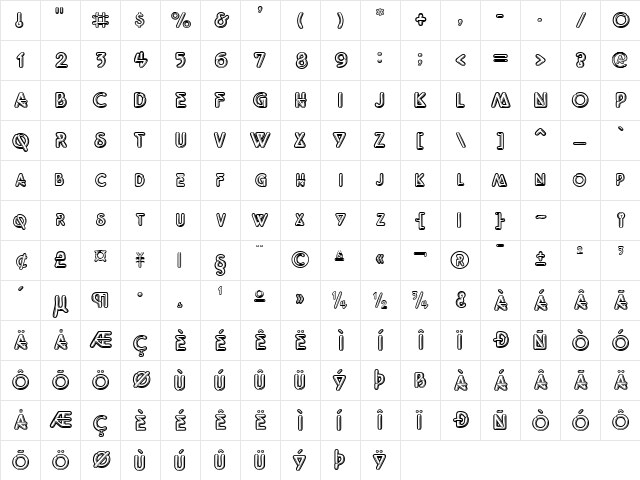
DriveInOutlineSCapsSSK Regular Font Preview
DriveInOutlineSCapsSSK Regular
Design Context for DriveInOutlineSCapsSSK Typeface
DriveInOutlineSCapsSSK brings ornamental detail and strong personality to headlines and identities, where visual impact matters more than quiet functionality.
Font Pairing: Pair with a clean neutral sans-serif for body copy to let DriveInOutlineSCapsSSK's character lead without overwhelming the composition.
Pro Tip: Use DriveInOutlineSCapsSSK exclusively at display sizes — it was designed to be seen, not read at length. Let a neutral companion handle body copy.